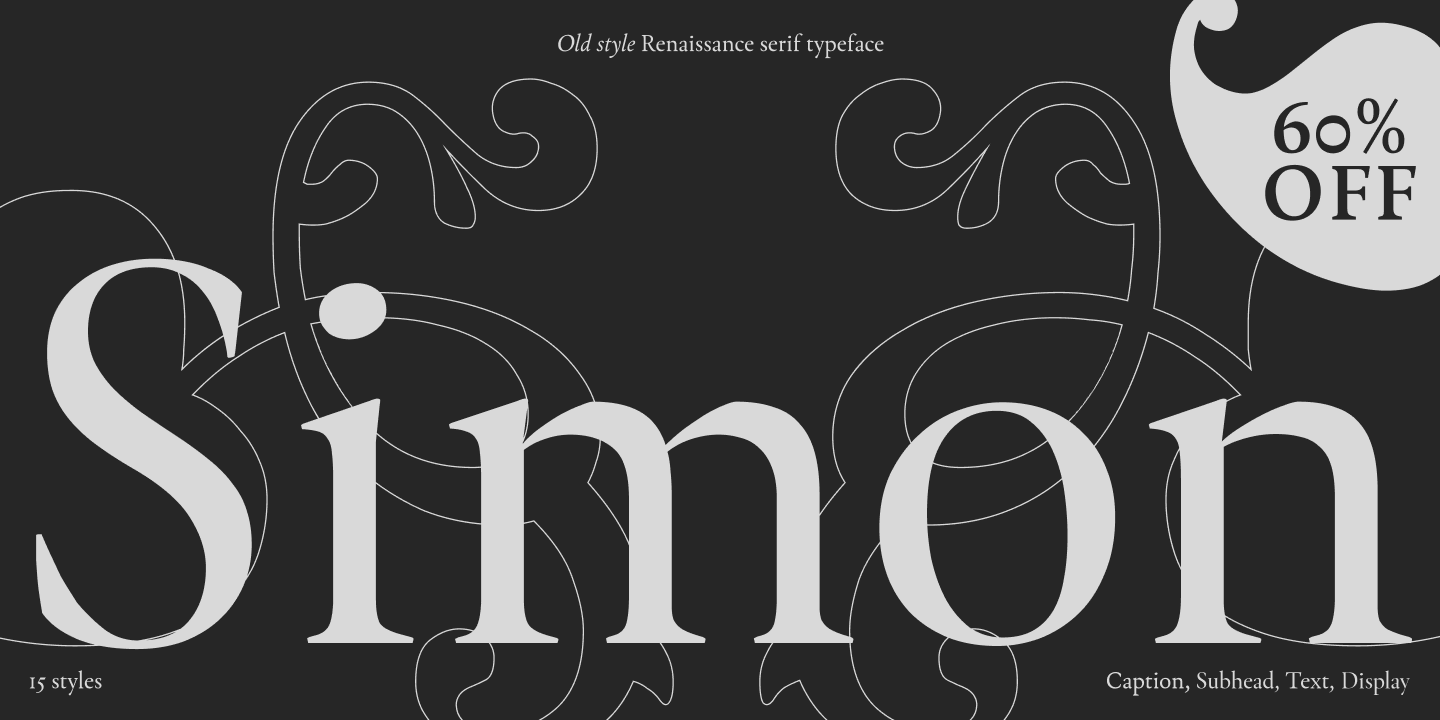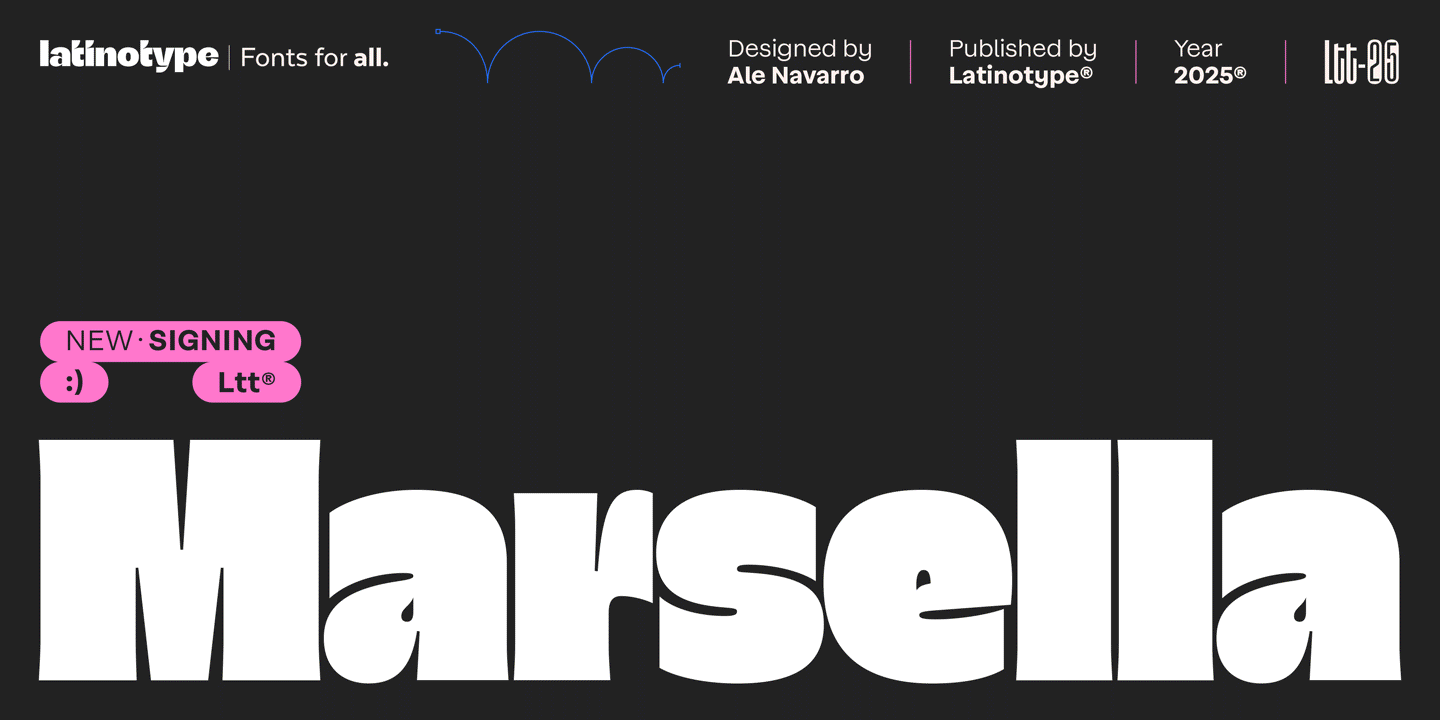
Squadra Stencil is a bold and modern stencil typeface with a unique geometric and modular aesthetic based on our previous release Squadra. It features a strong rectilinear and angular structure, with precisely placed breaks in the letterforms that create the stencil effect while maintaining legibility. This typeface is ideal for a variety of applications, including branding for futuristic or industrial-themed projects, editorial and magazine design, tech-related interfaces, luxury fashion identities, and bold poster compositions. Squadra Stencil is a perfect balance of precision, modernity, and experimental stencil typography, making it both highly functional and visually compelling. 18 fonts for $220 $110 | |
60% OFF ENDS SOON 🔥 Simon is a revival of the typefaces by Simon de Colines, a French punchcutter and printer of the 16th century. It's a calm and soft serif that works well in books, as well as in historical and cultural projects, and fashion branding. Simon is great for books, magazines, and poetry. The Display styles are a perfect fit for covers. All in all, the typeface is quite versatile and suits different areas, such as fashion branding, restaurant menus, and cosmetic packaging. To get the most out of Simon, choose the right optical size. Display and Subhead are more expressive, while Text and Caption make small-sized text easier to read. The variable version of the typeface allows you to adjust the optical size to your needs. Simon contains 15 styles, including upright and italic styles in four optical sizes—Caption, Text, Subhead, and Display—plus a variable font for added flexibility. Hurry! Sale ends Friday, May 9th at 11:59 p.m. EDT. 15 fonts for $249 $99.60 | |
60% OFF ENDS SOON 🔥 Marsella is a typeface that reinterprets the spirit of French humanist fonts from the 1960s with a modern, artisanal touch. Its generous x-height, delicate serifs, and balanced proportions create a refined, timeless aesthetic. Crafted with precision, Marsella offers weights from Thin to Black, along with a Poster variant that elevates spaces with compact, dynamic compositions. SAVE now before it's gone, sale ends May 10th at 11:59 p.m. EDT. 10 fonts for $129 $51.60 | |